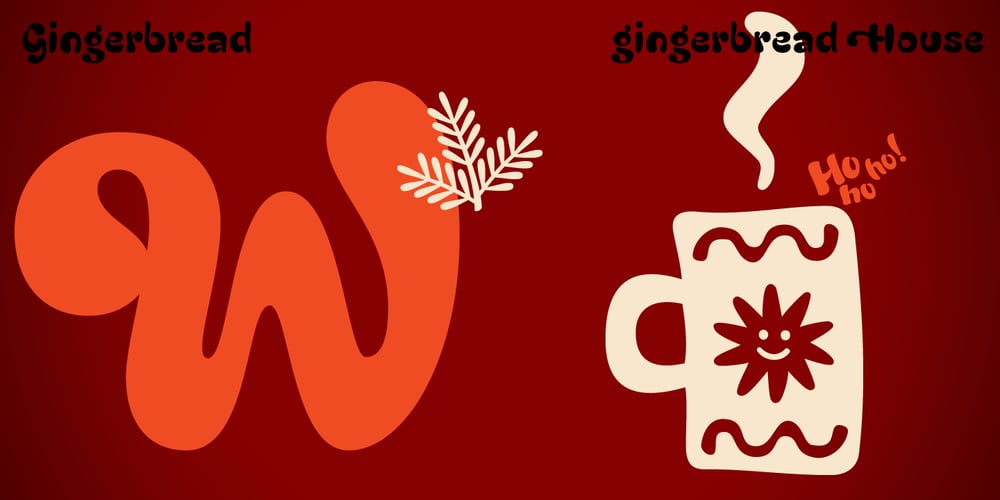
Gingerbread House Font Family was designed by Vasily Biryukov, Alexandra Korolkova and published by Alexandra Korolkova. Gingerbread House contains 1 styles and family package options. Gingerbread House is a soft and sweet holiday font which consists of 72 carefully drawn dingbats for Christmas, inspired by soft shapes of sweets and bakery. It is good for greeting cards and other holiday stuff. It has a companion font — Gingerbread.